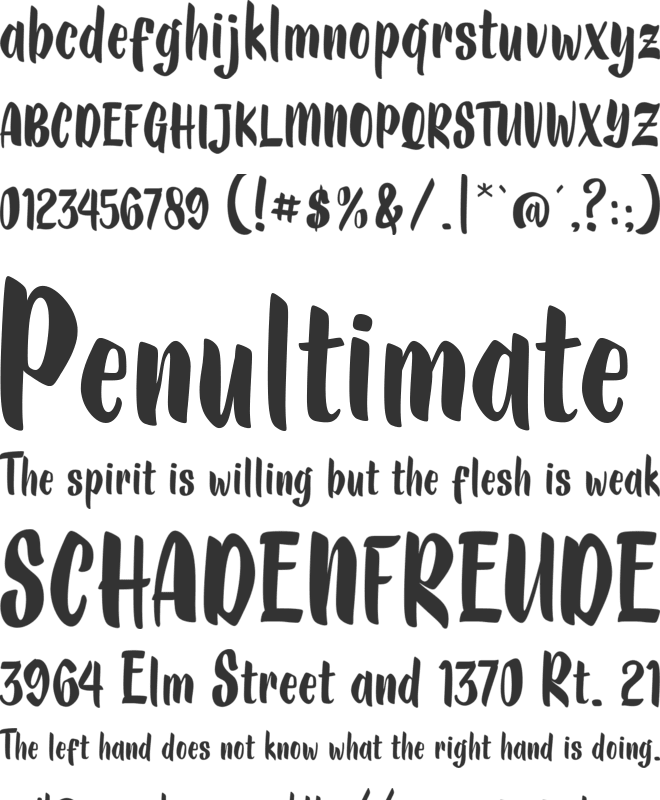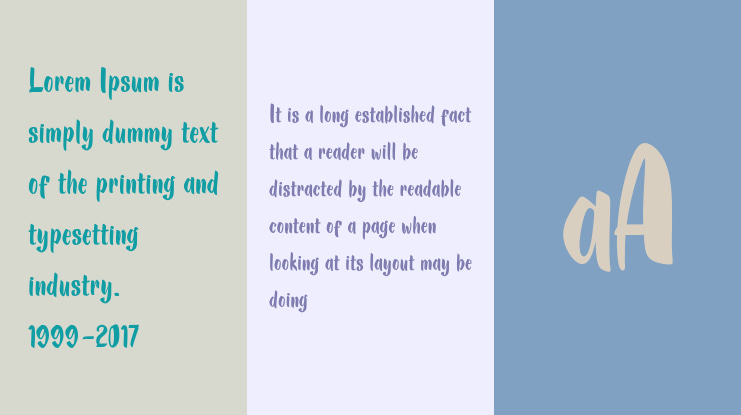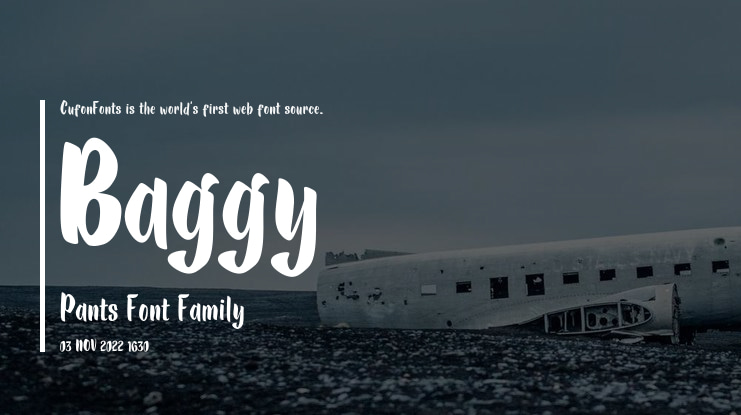
Baggy Pants Font
Baggy Pants is a playful display font featuring expressive letterforms. Each character is uniquely shaped, giving the font a fun and friendly personality that stands out in any design. This font is perfect for t-shirt designs, creative branding, stickers, packaging, scrapbooking, and a wide range of digital design projects.
Its soft yet bold appearance creates a cheerful and modern vibe, making it a great choice for designers who want to add a warm and lively touch to their work. With its easy-to-read shapes and whimsical flow, Baggy Pants delivers a professional yet playful look in every use.